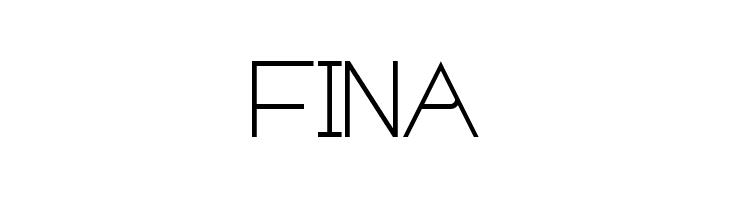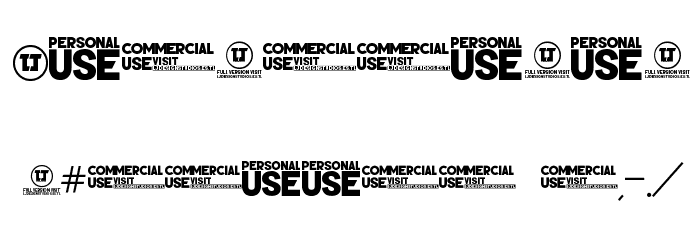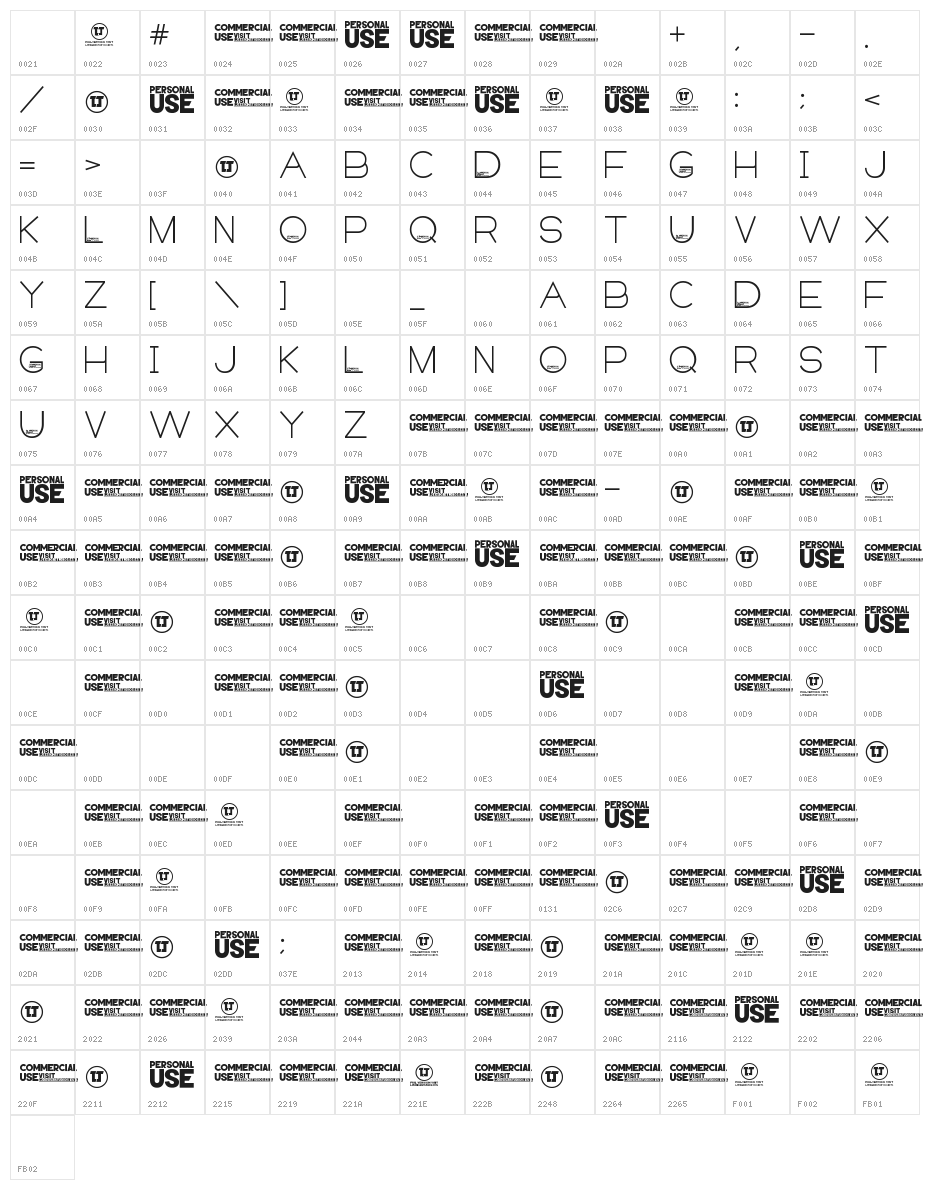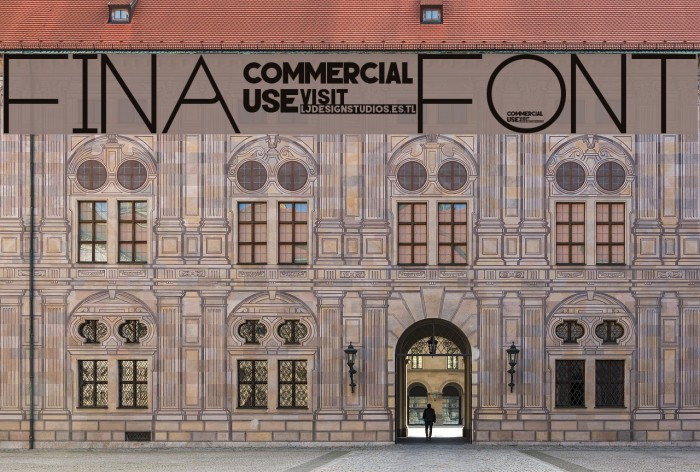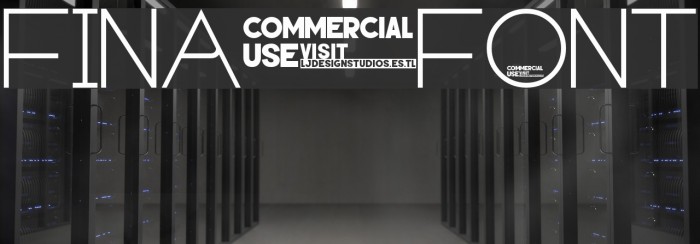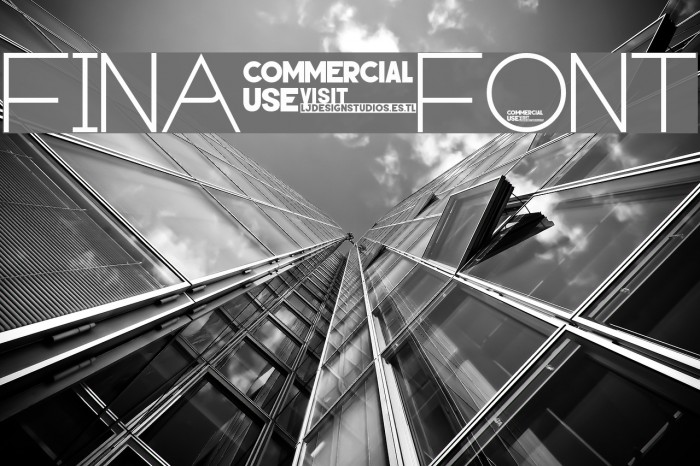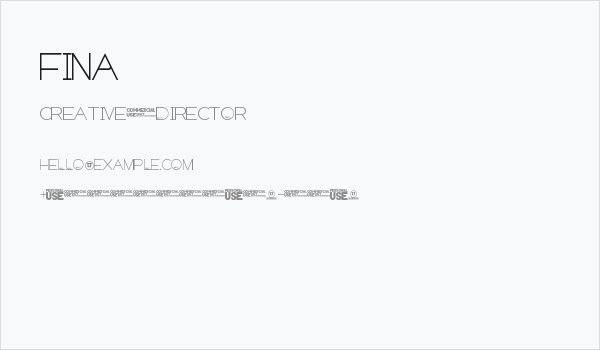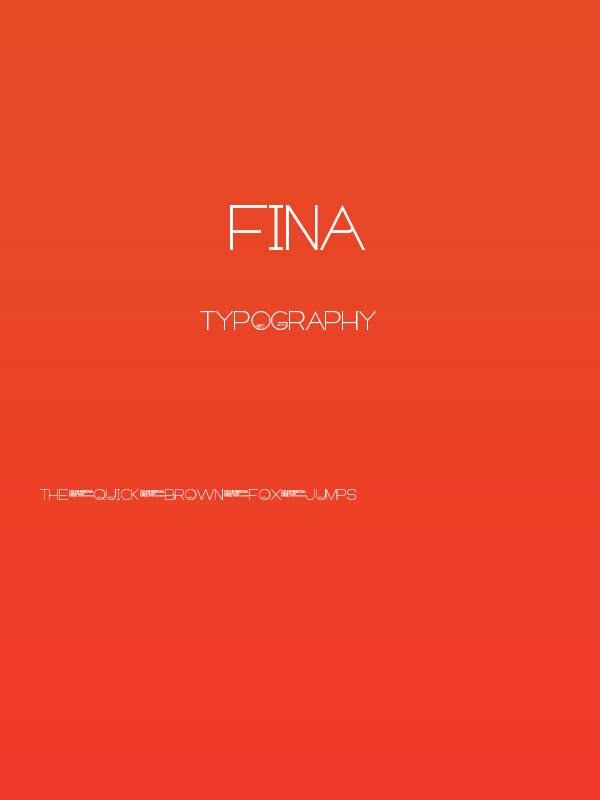
FINA Font
FINA Description
This font features a modern, geometric sans-serif style with clean lines and a minimalist aesthetic. The characters are constructed with uniform stroke widths, giving it a sleek and contemporary appearance. The uppercase letters are tall and narrow, while the lowercase letters maintain a consistent height, providing a balanced and cohesive look. The numerals and special characters are designed to match the overall style, ensuring versatility across various applications. This font is ideal for projects that require a modern and professional touch.
| Proposed Projects | Ideal for branding, advertising, web design, and editorial layouts. |